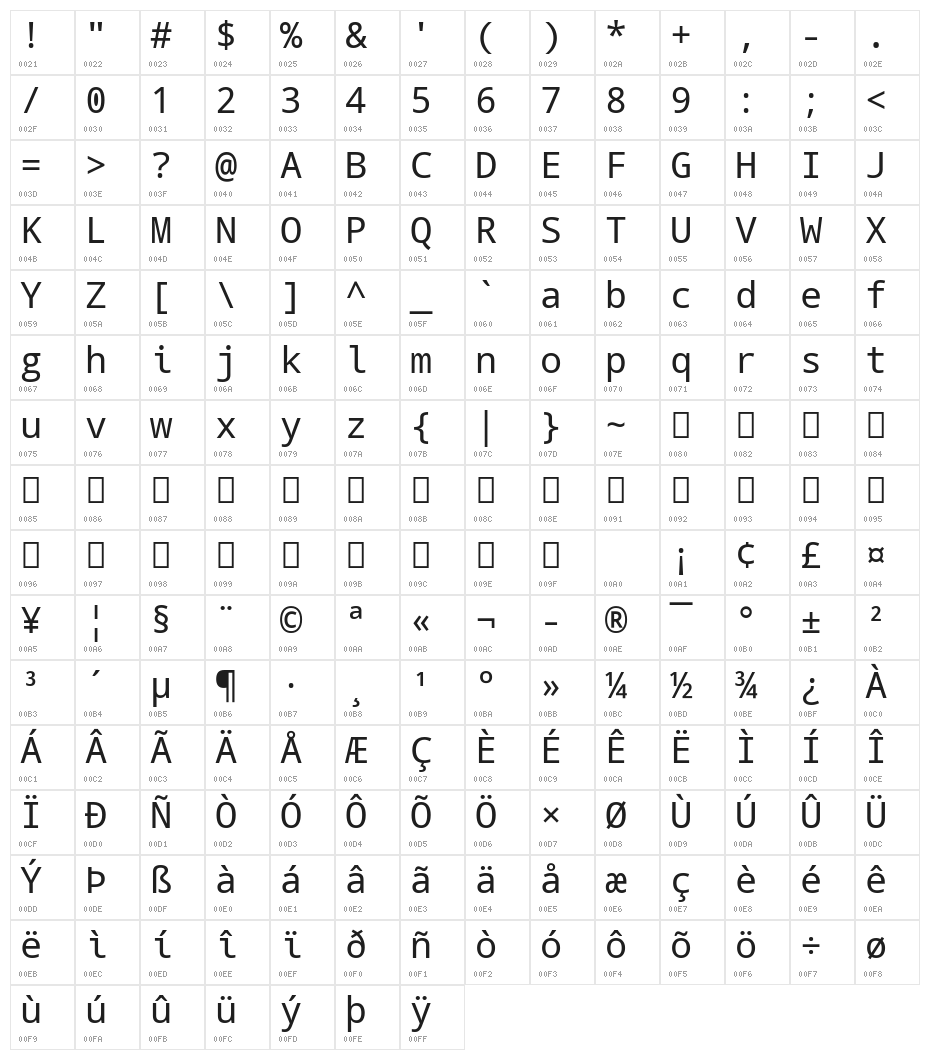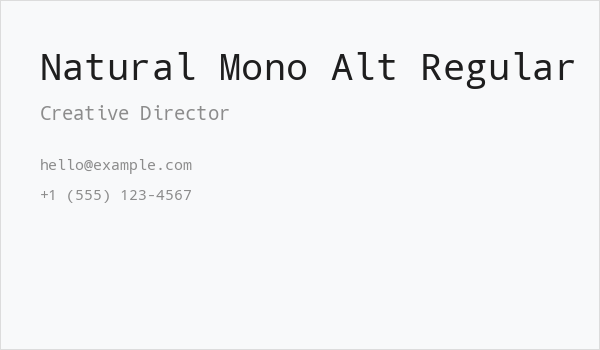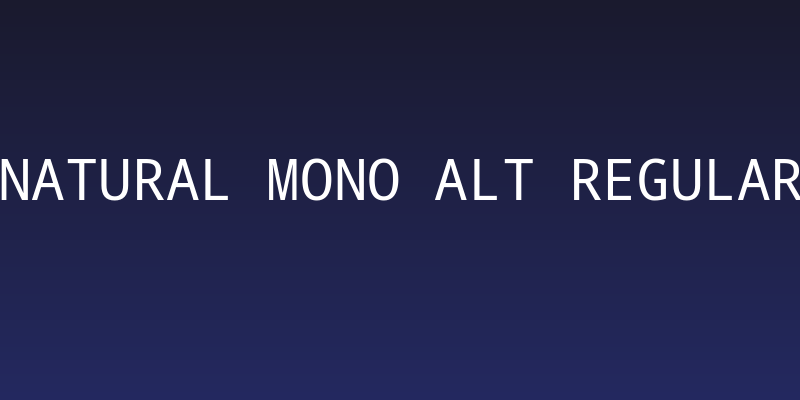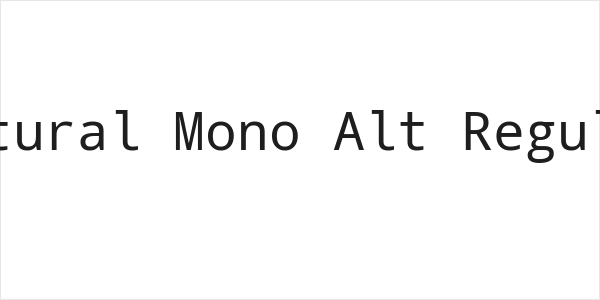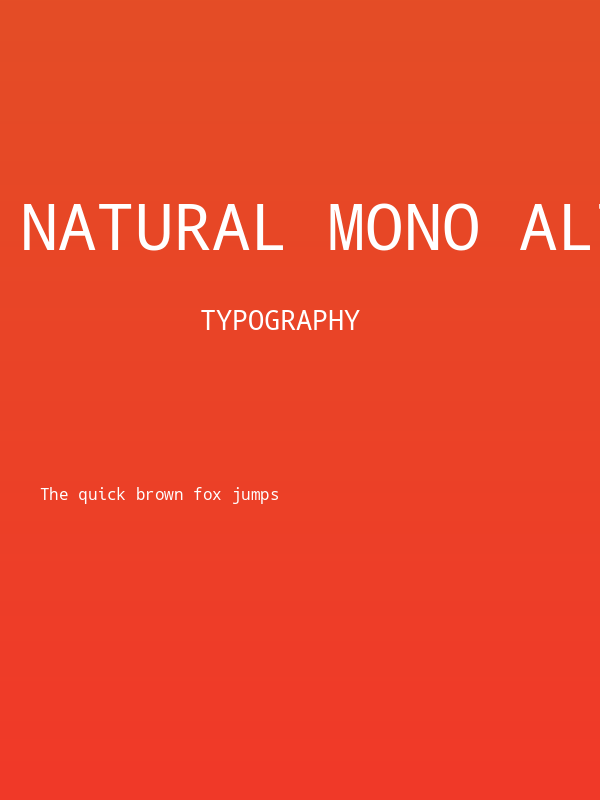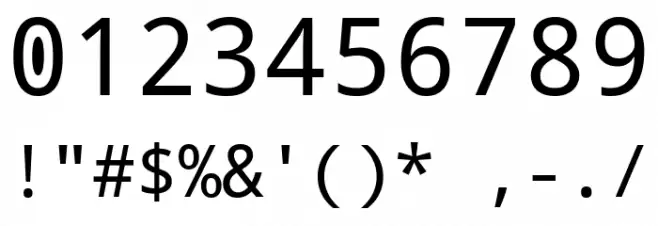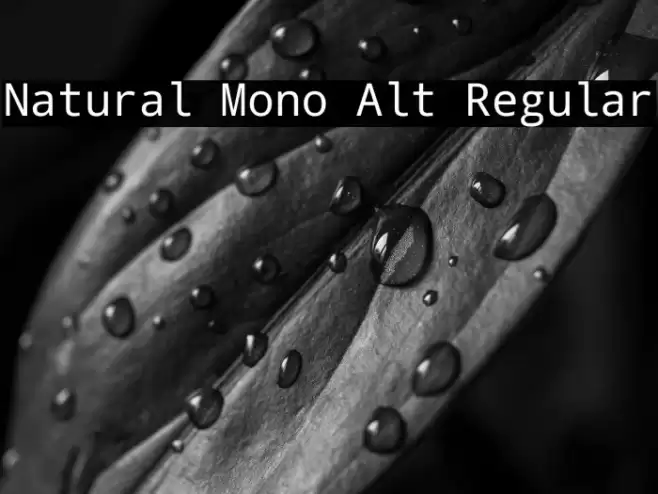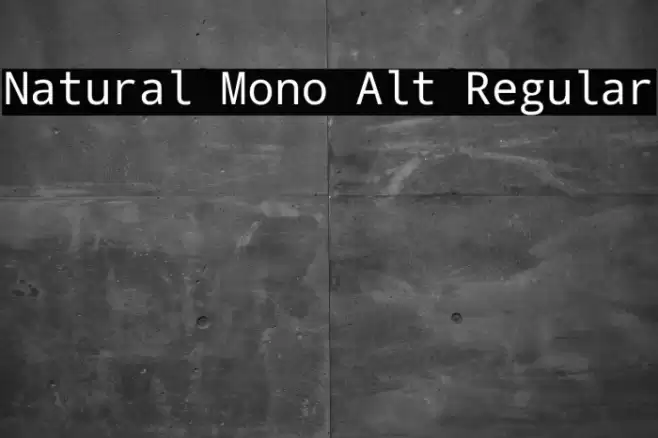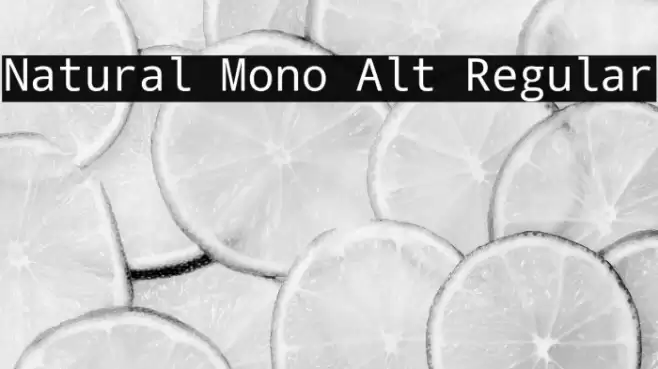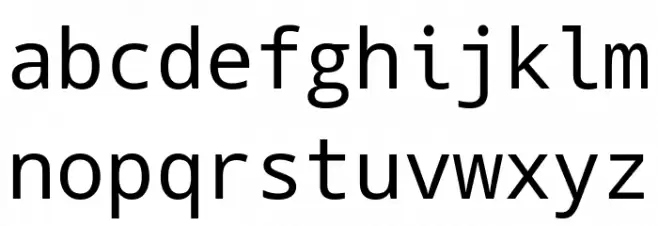
Natural Mono Alt Regular Font
Natural Mono Alt Regular Description
This font features a clean and modern monospaced design, characterized by uniform character width and a straightforward, minimalist aesthetic. The uppercase and lowercase letters maintain a consistent height and width, providing a balanced and orderly appearance. The numerals and special characters are crafted with precision, ensuring readability and clarity. The font's simplicity and lack of decorative elements make it highly versatile for various applications, from coding environments to technical documentation. Its geometric shapes and even stroke widths contribute to a professional and contemporary look.
| Use Case | Coding, Technical documentation, Data tables |
| Proposed Projects | Ideal for coding, technical documentation, data tables, and any project requiring precise alignment. |